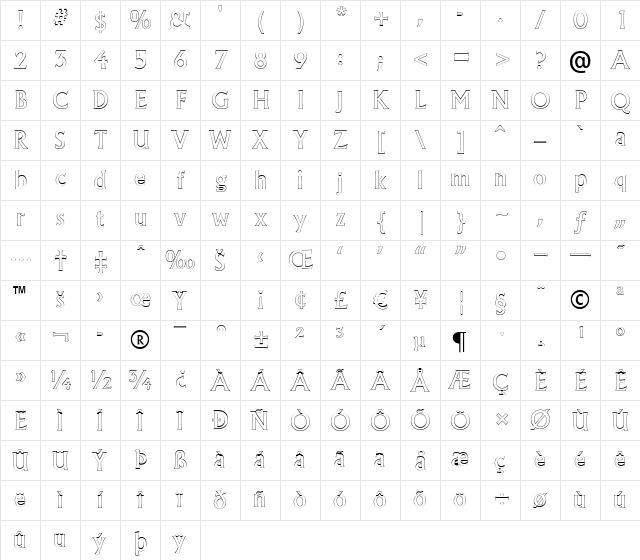
a_AllgidusOtl Regular
Designer: W.Chufarofsky & M.Slutsker
Design Context for a_AllgidusOtl
a_AllgidusOtl is a composed and adaptable typeface that performs quietly and consistently across a wide range of design contexts.